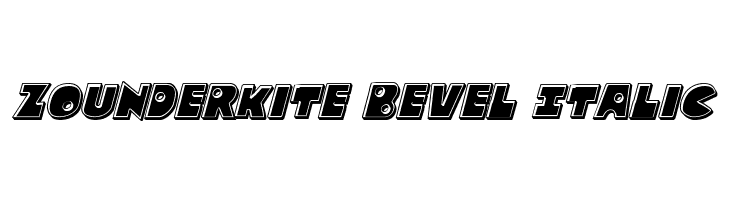
Bold, italicized font with a beveled, three-dimensional effect.
A bold, beveled font with a three-dimensional, decorative style.
A bold, italicized font with a beveled, three-dimensional look.
A bold, beveled, italic font with a three-dimensional look.
A bold, beveled font with a three-dimensional, geometric style.